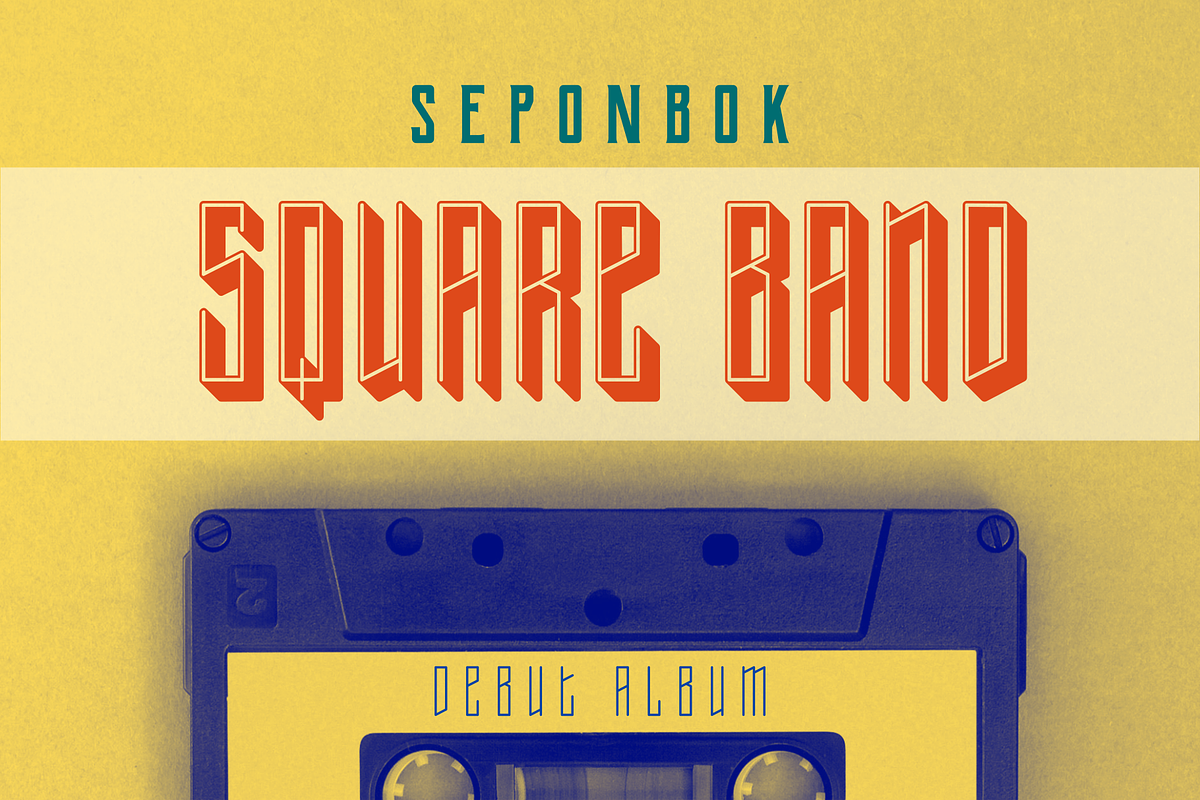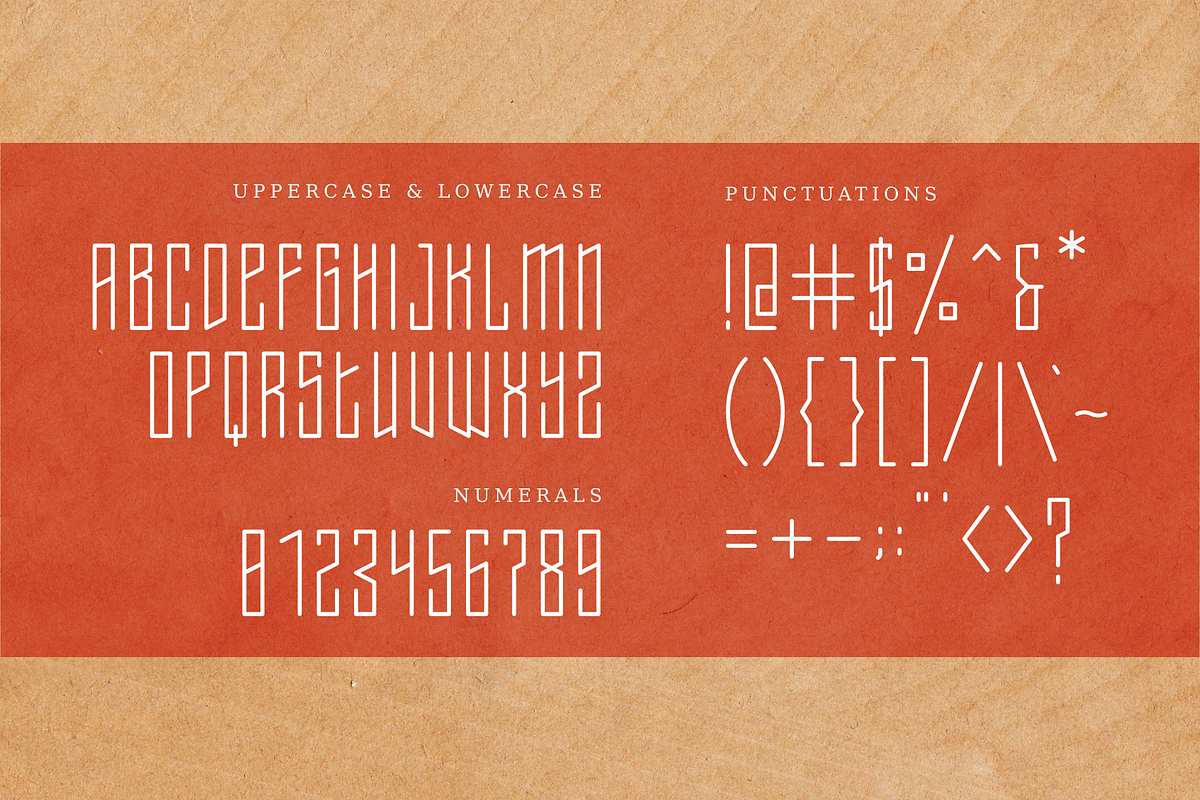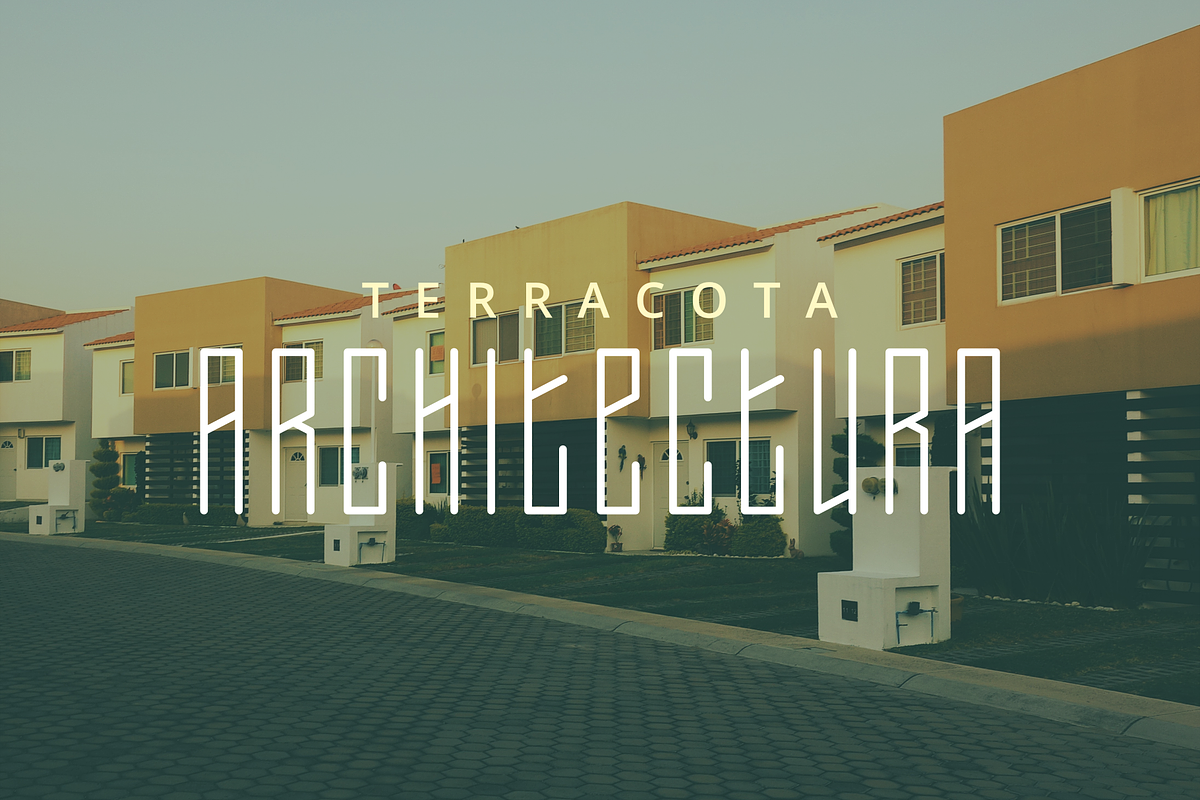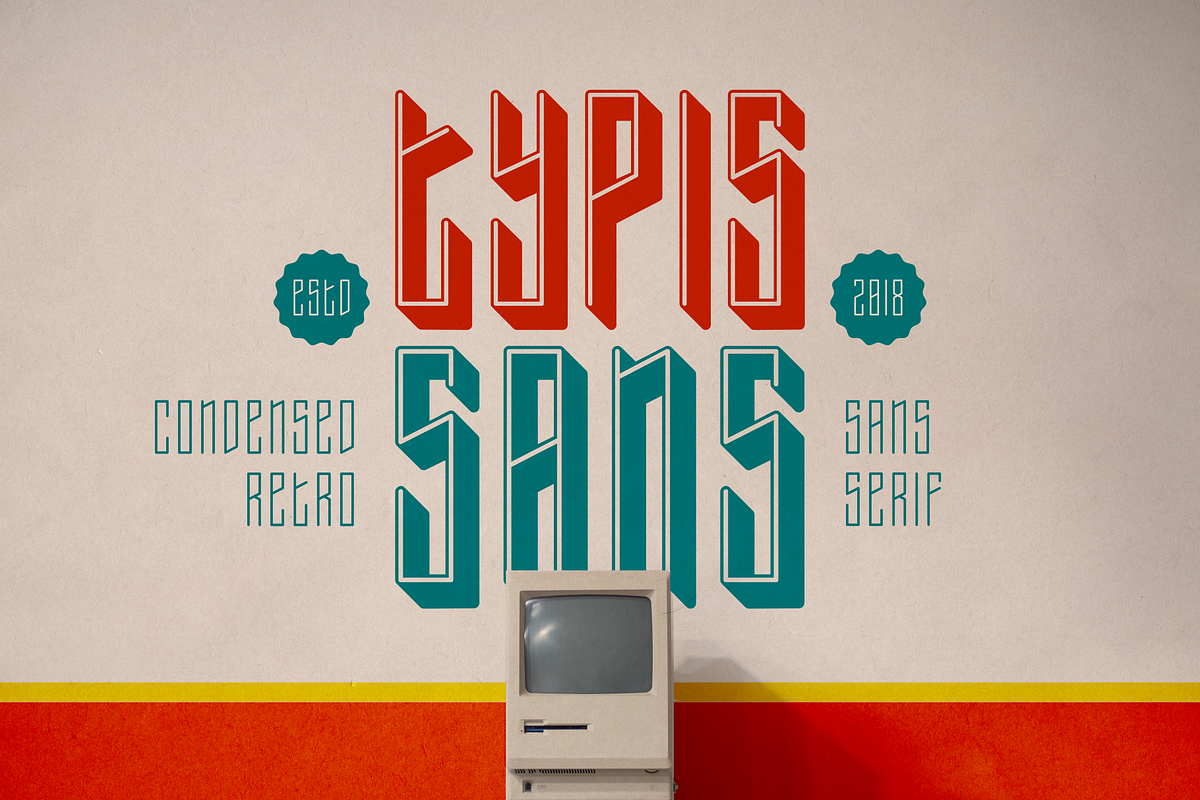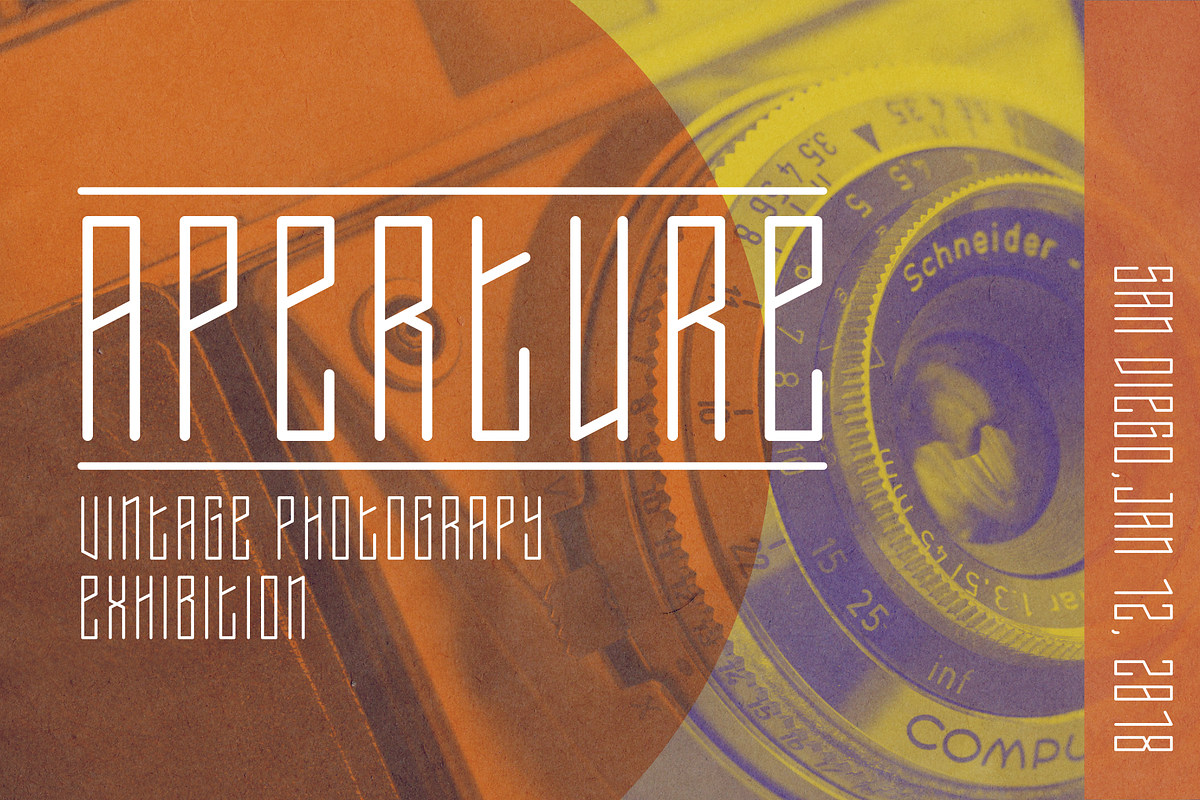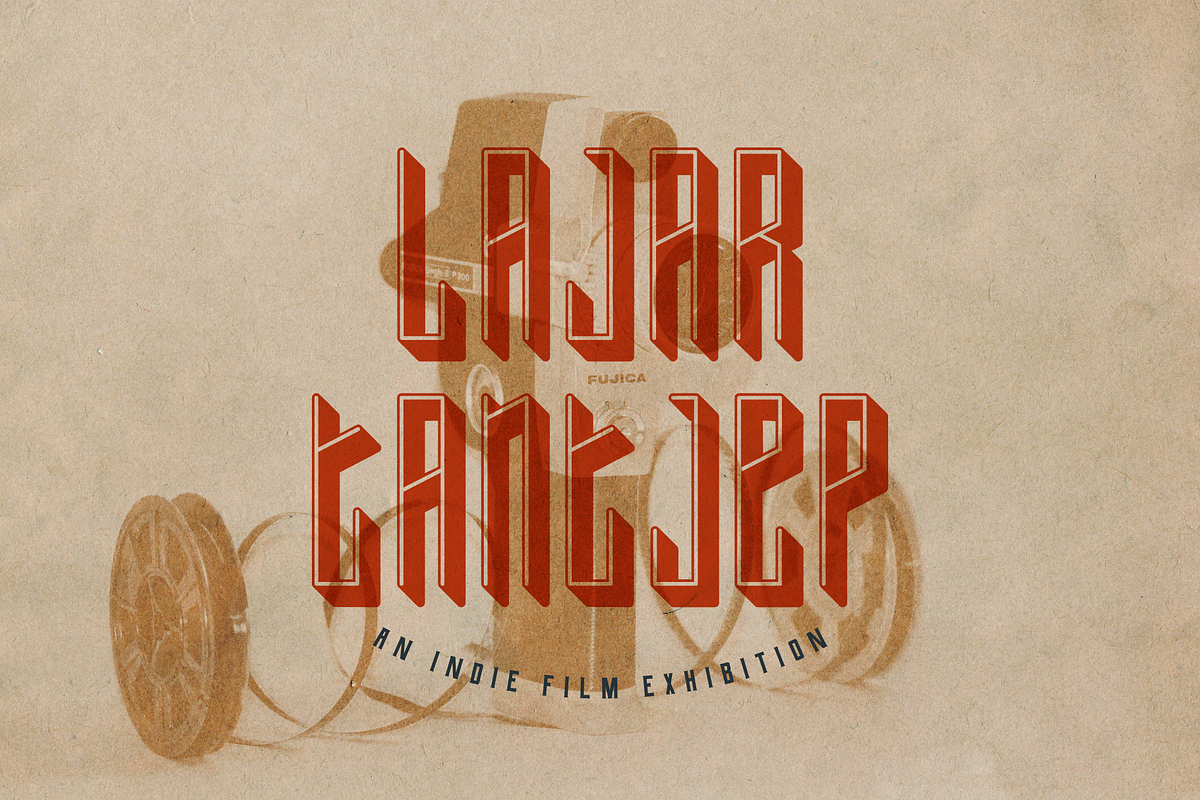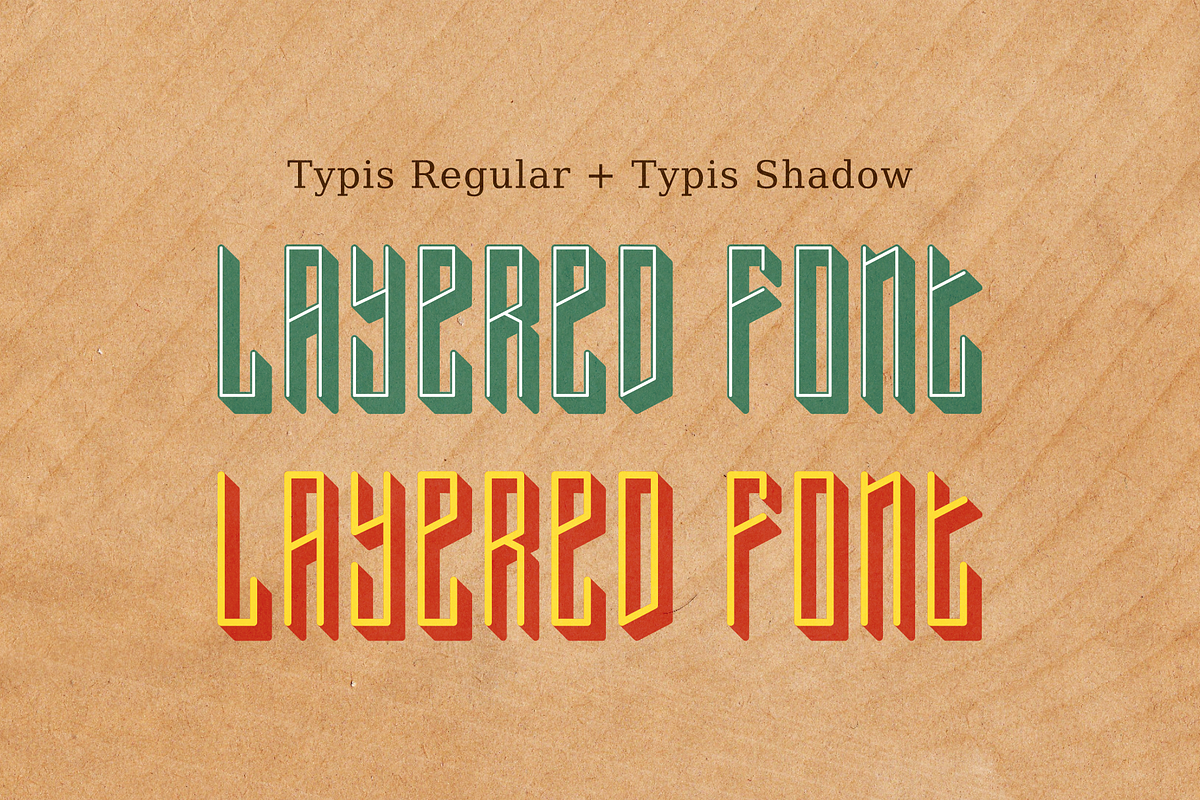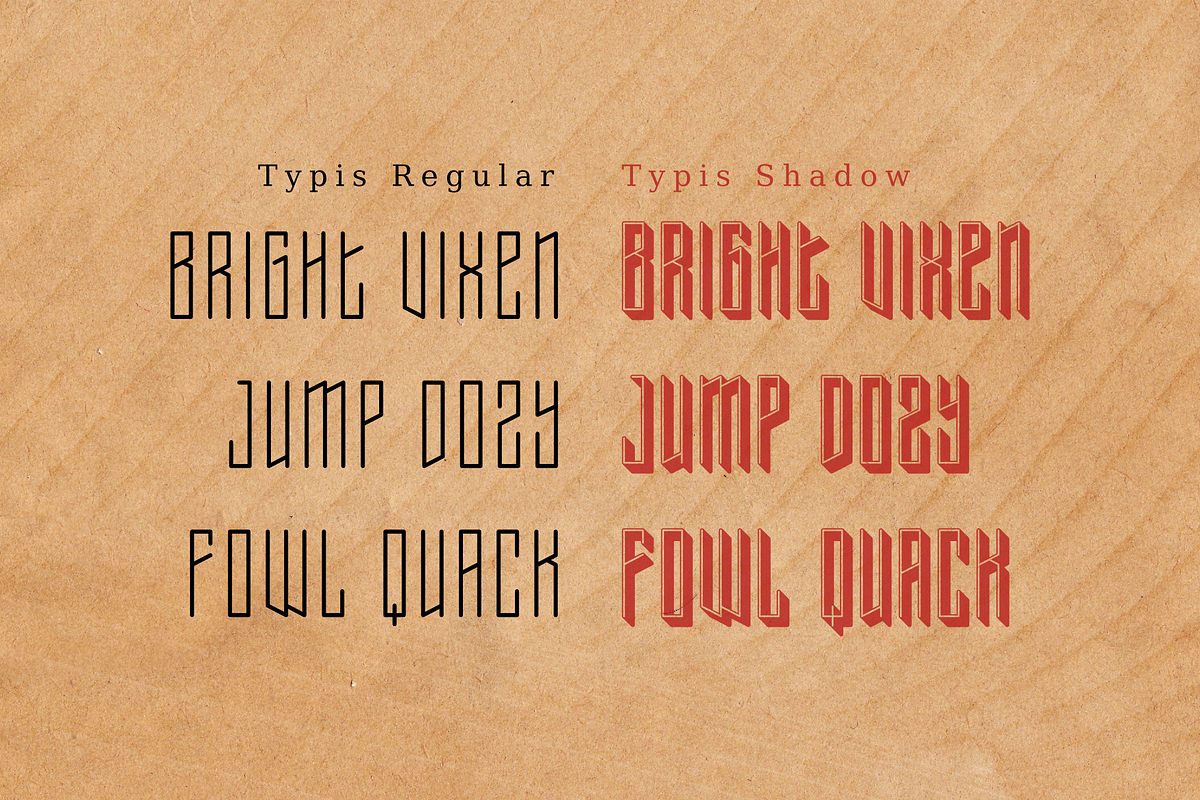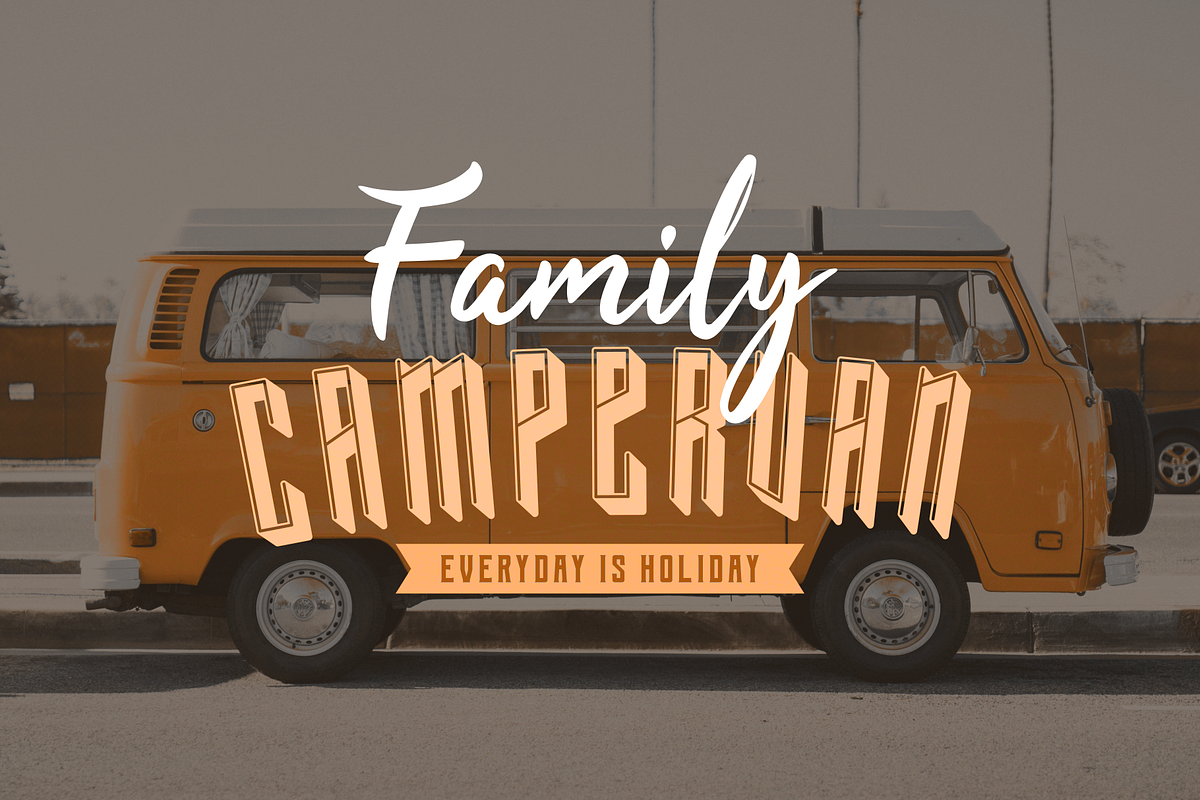
Typis Layered Font
Typis Sans was inspired by retro sans serif typography. With geometric, slim and condensed shape will make it more authentic to vintage taste.
- Uppercase / Lowercase
- Punctuations
Available in two versions : Regular & Shadow
( Combine both of them to make shadow effect of the font, So easy ! )